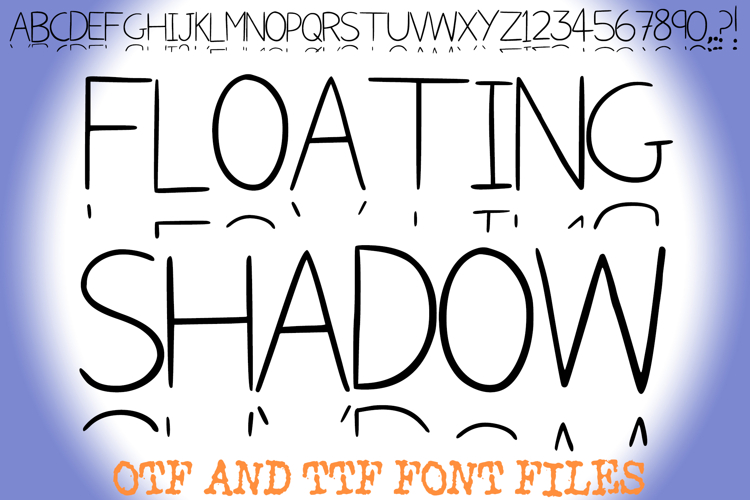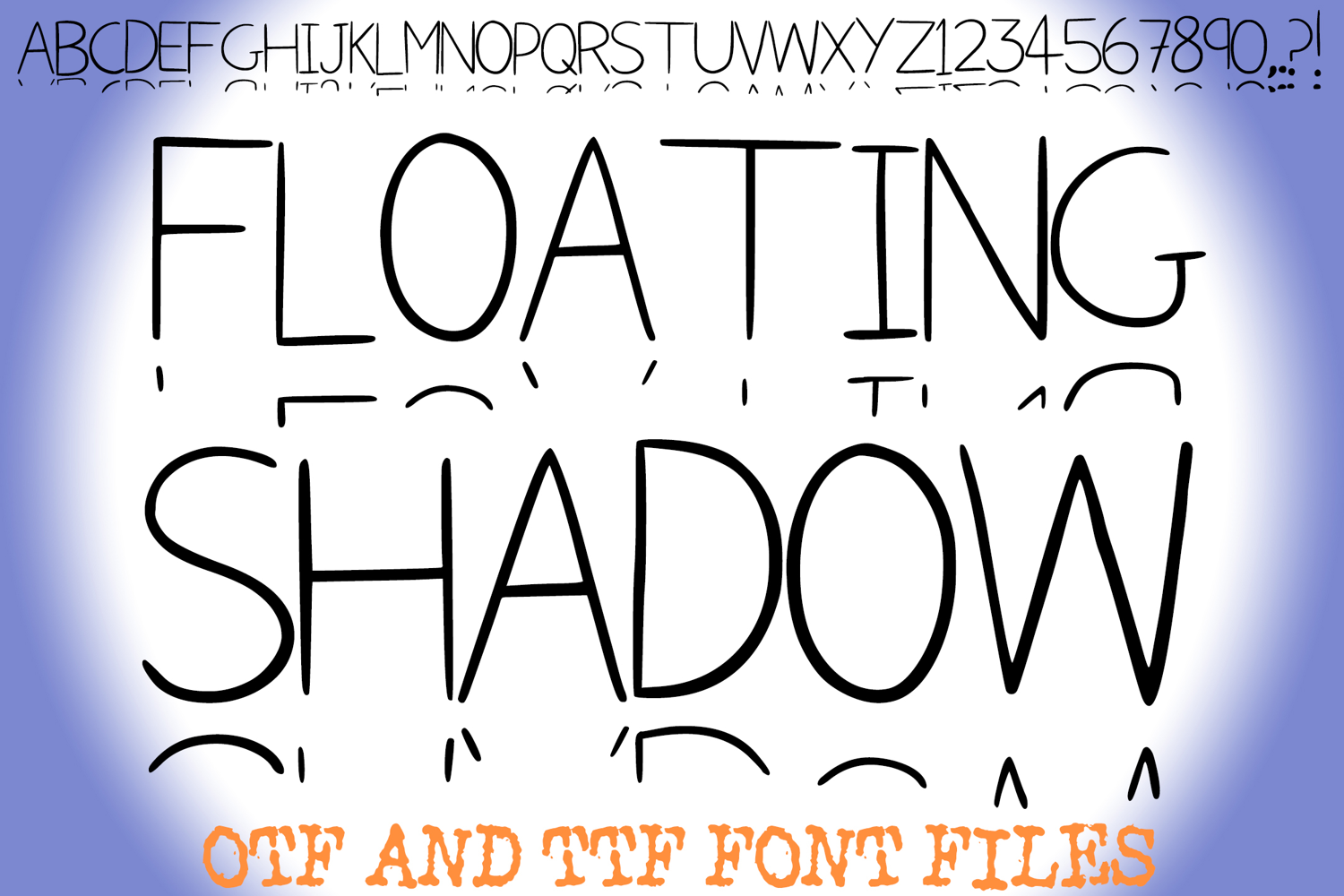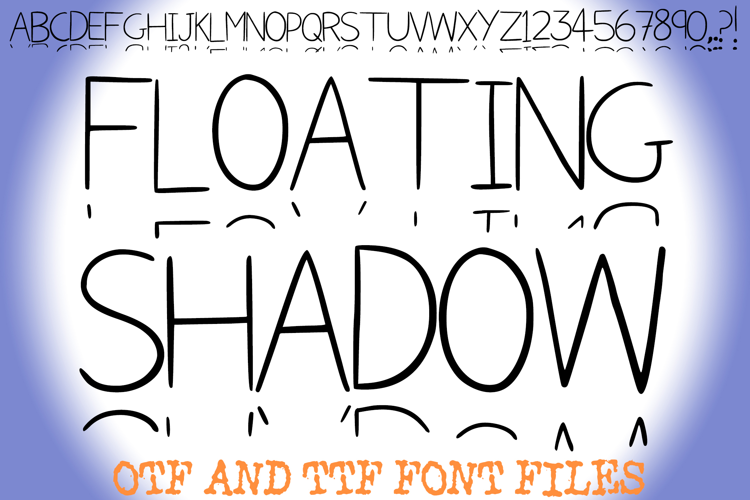
Give your text a lift with Floating Shadow Font, a playful hand-drawn typeface that jumps right off the page! This unique display font features a clean, sans-serif handwritten style paired with a signature detached "shadow" line beneath every character, creating a fun, dimensional effect.
Perfect for adding a bit of whimsy to your designs, Floating Shadow Font mimics the look of neat classroom doodles and bullet journal headers. The clean lines make it highly readable while maintaining a fun, custom-crafted feel.